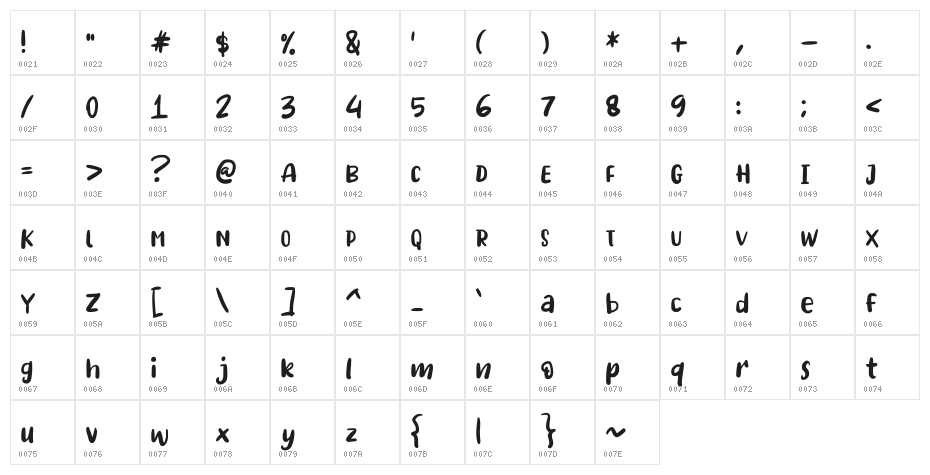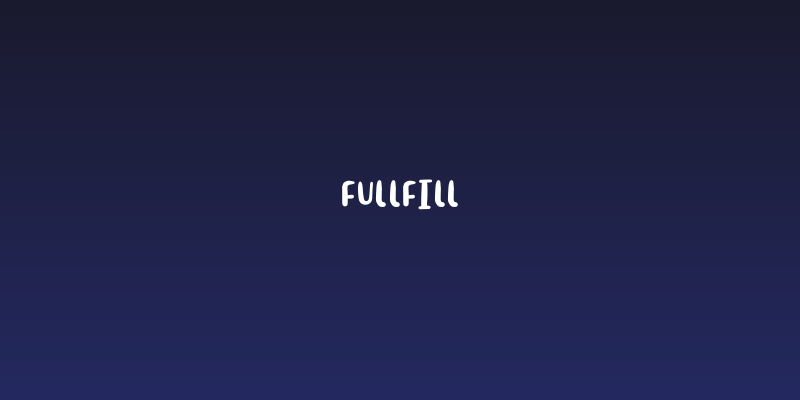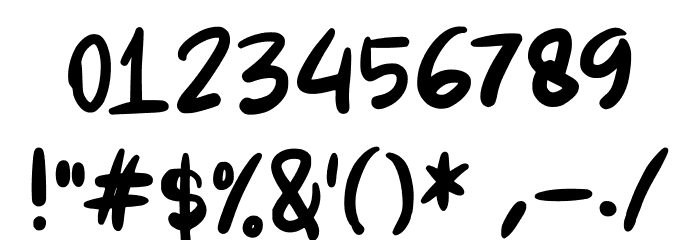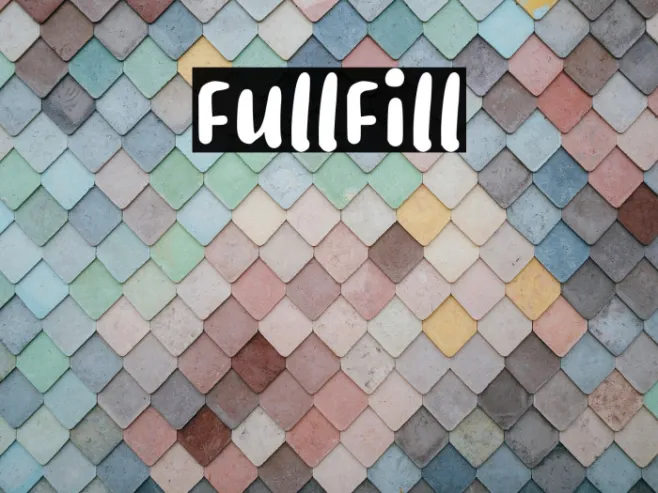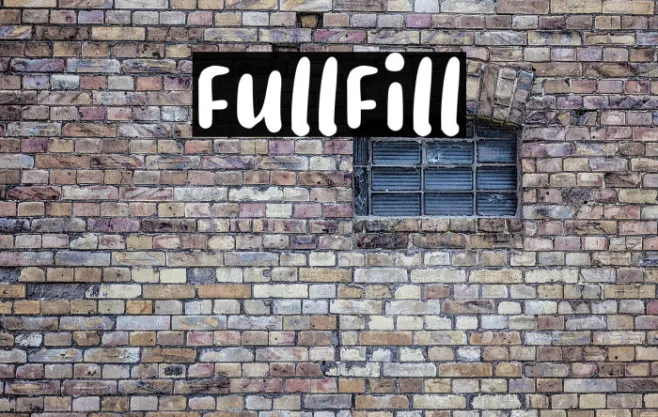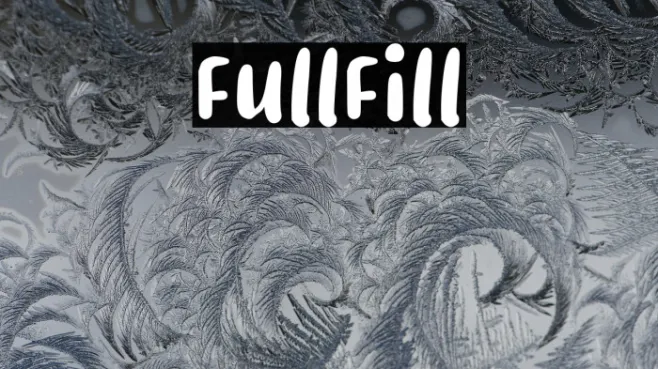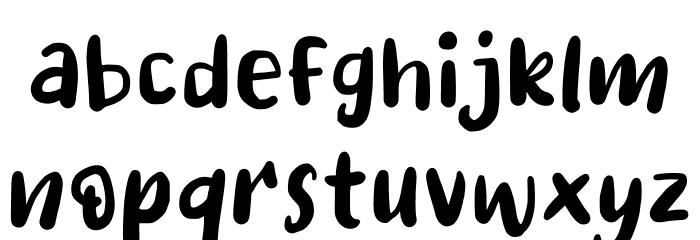
FullFill Font
FullFill Description
This font features a playful and bold handwritten style, characterized by its rounded and slightly irregular letterforms. The strokes are thick and consistent, giving it a strong presence on the page. The uppercase and lowercase letters maintain a cohesive look, with a casual and friendly appearance. Numbers and special characters follow the same design principles, ensuring uniformity across all glyphs. The font's organic feel makes it suitable for projects that require a personal touch or a sense of warmth and approachability.
FULLFILL UPPERCASE
FULLFILL LOWERCASE
FULLFILL OTHER CHARS
| Proposed Projects | Ideal for greeting cards, children's books, posters, and branding that requires a friendly and approachable look. |